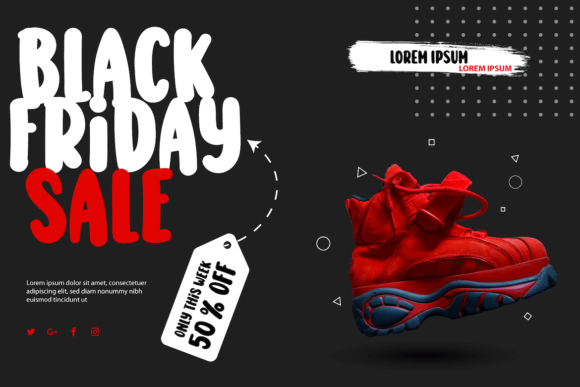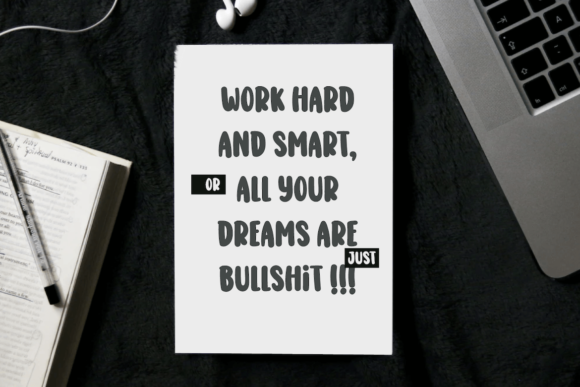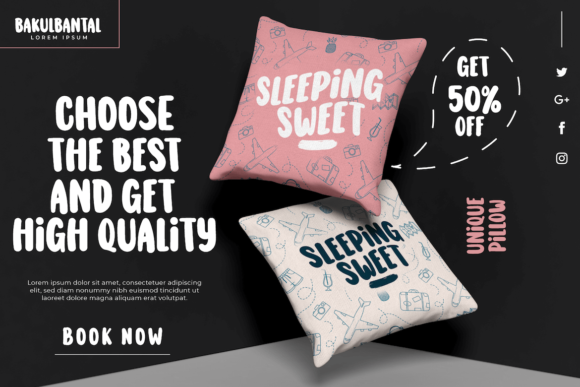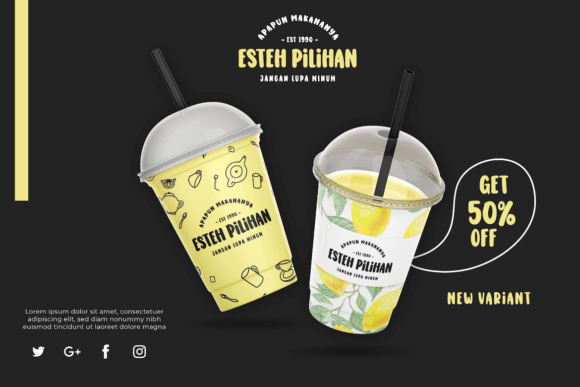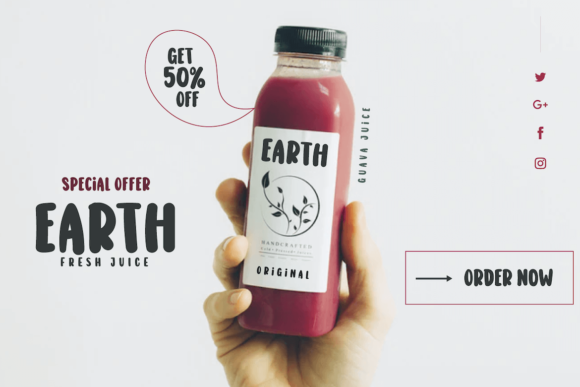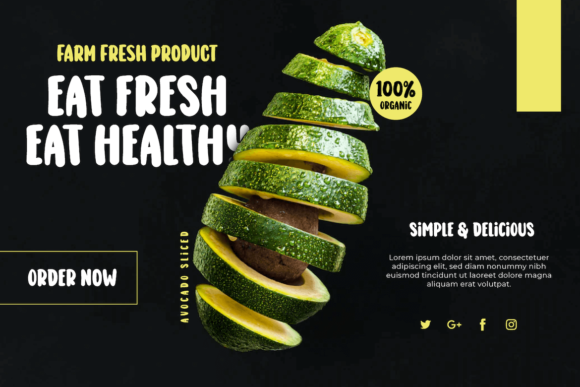
Girly Font: The Ultimate Brushed Display Font for Stunning Designs
Are you looking for a font that can add a touch of femininity and playfulness to your designs? Look no further than Girly Font, a cool and friendly brushed display font that’s perfect for creating stunning posters, flyers, and prints. In this article, we’ll explore the features and benefits of Girly Font, and show you how to make the most of its endless possibilities.
What is Girly Font?
Girly Font is a unique and stylish brushed display font that’s designed to add a touch of elegance and sophistication to your designs. Its bold and playful strokes make it perfect for creating eye-catching headlines, titles, and captions that will grab the attention of your audience. Whether you’re a designer, crafty DIY enthusiast, or simply someone who loves to create, Girly Font is a versatile and easy-to-use font that’s sure to become a favorite in your collection.
Key Features of Girly Font
- Brushed Display Font: Girly Font features a beautiful brushed effect that gives it a unique and hand-crafted feel.
- Cool and Friendly: The font’s playful and approachable style makes it perfect for creating designs that are both fun and feminine.
- Stunning on Any Poster, Flyer, or Print: Whether you’re creating a poster, flyer, or print, Girly Font is sure to look stunning and eye-catching.
- Endless Possibilities: With Girly Font, you can create a wide range of designs, from elegant and sophisticated to playful and whimsical.
Why Choose Girly Font?
So why choose Girly Font over other fonts? Here are just a few reasons why Girly Font stands out:
- Unique and Stylish: Girly Font is a one-of-a-kind font that’s sure to make your designs stand out from the crowd.
- Easy to Use: With its simple and intuitive design, Girly Font is easy to use, even for those who are new to font design.
- Versatile: Girly Font can be used for a wide range of designs, from posters and flyers to prints and digital graphics.
- Feminine and Playful: Girly Font’s playful and feminine style makes it perfect for designs that require a touch of elegance and sophistication.
How to Use Girly Font
Using Girly Font is easy! Here are a few tips to get you started:
- Pair it with Other Fonts: Girly Font pairs well with other fonts, so feel free to experiment with different combinations to create unique and interesting effects.
- Experiment with Colors: Girly Font looks great in a variety of colors, so don’t be afraid to try out different hues and shades to find the perfect look for your design.
- Use it for Headlines and Titles: Girly Font is perfect for creating eye-catching headlines and titles that will grab the attention of your audience.
- Add Texture and Patterns: Consider adding texture and patterns to your design to give it an extra layer of depth and interest.
Still not sure how to use Girly Font? Here are a few ideas and inspiration to get you started:
- Create a Wedding Invitation: Girly Font is perfect for creating beautiful and elegant wedding invitations that will set the tone for your special day.
- Design a Poster: Use Girly Font to create a stunning poster that will grab the attention of your audience and leave a lasting impression.
- Make a DIY Craft: Girly Font is perfect for DIY craft projects, such as making cards, gift tags, and other handmade items.
- Create a Social Media Graphic: Use Girly Font to create eye-catching social media graphics that will help you stand out from the crowd.
In conclusion, Girly Font is a cool and friendly brushed display font that’s perfect for creating stunning posters, flyers, and prints. With its unique and stylish design, ease of use, and endless possibilities, Girly Font is a must-have for designers, crafty DIY enthusiasts, and anyone who loves to create. So why wait? Download Girly Font today and start exploring its endless possibilities!